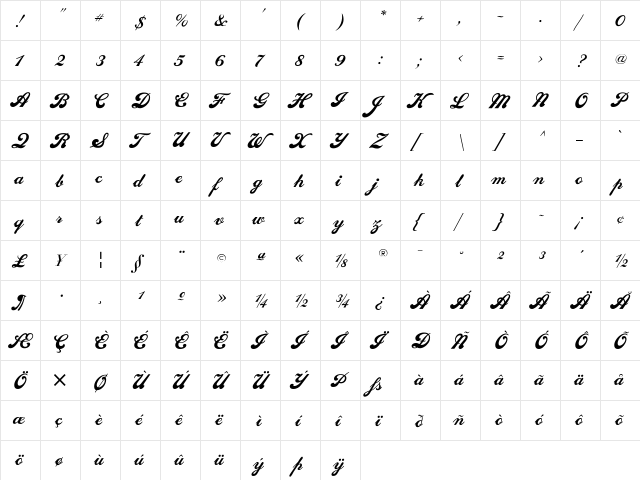
SedonaScriptFLF Regular
Design Context for SedonaScriptFLF Typeface
SedonaScriptFLF flows with the natural rhythm of handwritten lettering, making it ideal for designs that call for warmth and personal expression.
Font Pairing: Combine SedonaScriptFLF with a simple geometric sans for maximum contrast — the tension between flowing curves and clean structure is a classic typographic pairing.
Pro Tip: Pair SedonaScriptFLF with a clean sans-serif for supporting text. The contrast between fluid script and geometric structure creates an elegant typographic hierarchy.